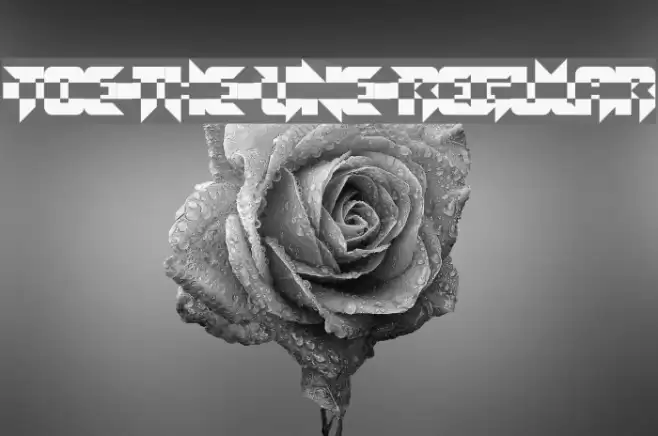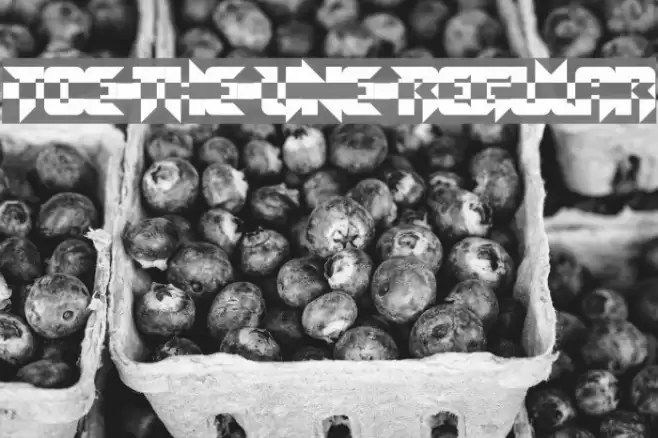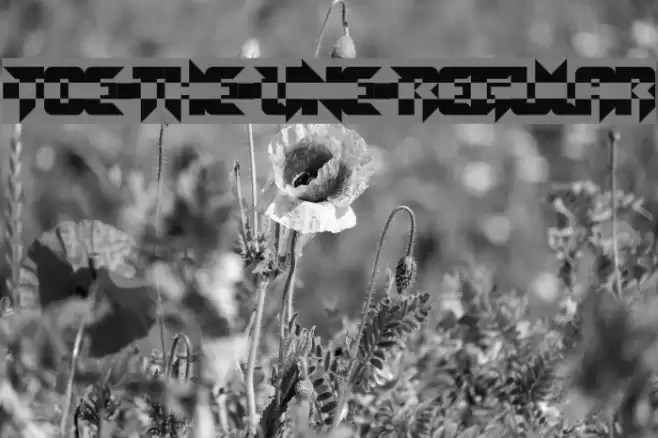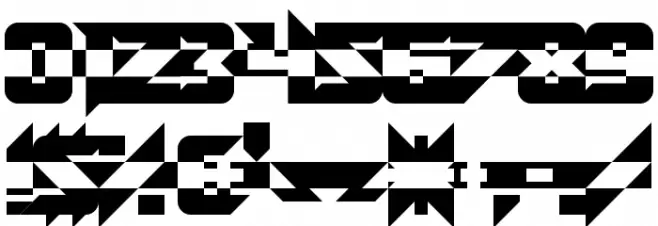
Toe the Line Regular Font
Toe the Line Regular Description
This font features a bold, geometric design with sharp angles and a futuristic aesthetic. The characters are constructed with a series of interlocking shapes, creating a dynamic and visually striking appearance. The uppercase and lowercase letters maintain a consistent style, with each character exhibiting a unique angular form. The numbers and special characters follow the same design principles, ensuring uniformity across the font. The overall look is modern and edgy, making it suitable for projects that require a strong visual impact.
A bold, geometric font with sharp angles and a futuristic style from Uncategorized fonts.
- Proposed Projects: Ideal for branding, posters, album covers, and any project seeking a modern, edgy look.